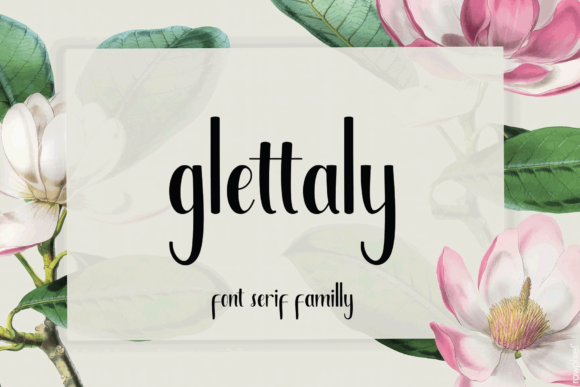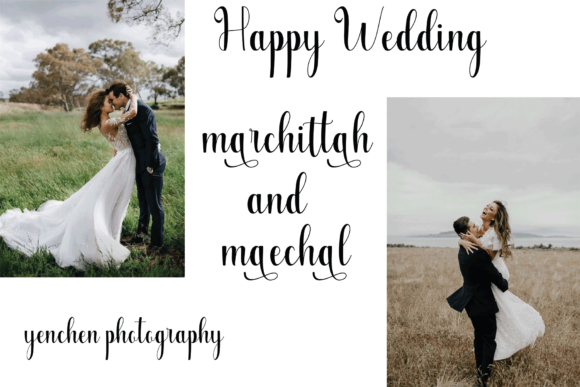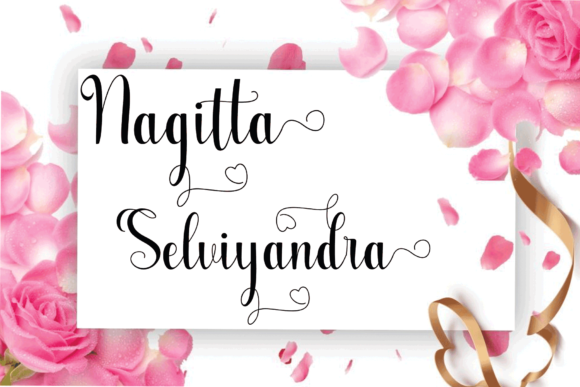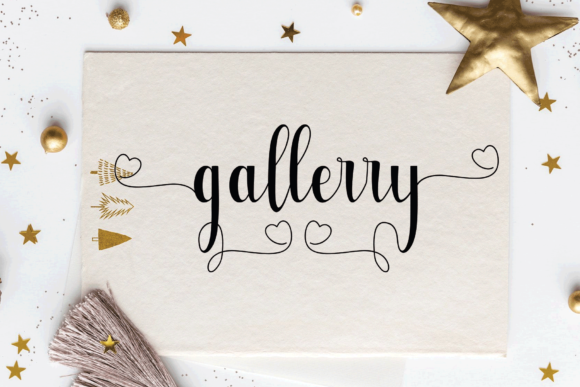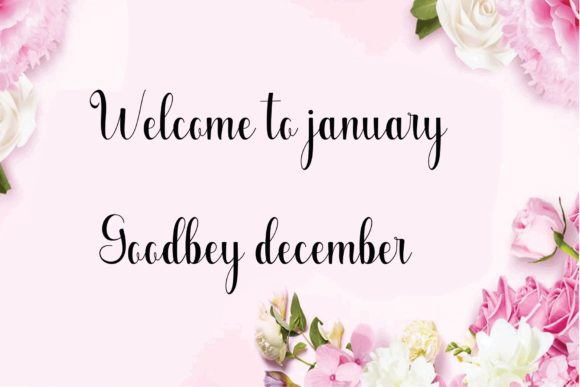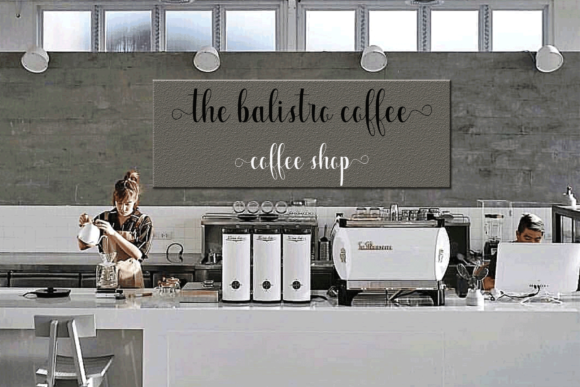
Glettaly Font: Add a Romantic Twist to Your Crafts
Are you a designer or crafter looking for a unique and romantic font to add a special touch to your projects? Look no further than Glettaly Font! This beautiful font is full of heart swashes that will add a romantic twist to any craft, making it perfect for Valentine’s Day projects and beyond.
What is Glettaly Font?
Glettaly Font is a stunning script font that features intricate heart swashes, perfect for adding a touch of romance and whimsy to your designs. The font is designed to be versatile and can be used for a variety of projects, from Valentine’s Day cards and crafts to wedding invitations and romantic gift tags.
Key Features of Glettaly Font
- Heart Swashes: Glettaly Font features beautiful heart swashes that add a romantic touch to any project.
- Script Font: The font is a script font, perfect for adding a touch of elegance and sophistication to your designs.
- Versatile: Glettaly Font can be used for a variety of projects, from Valentine’s Day crafts to wedding invitations and more.
Why Use Glettaly Font?
There are many reasons why Glettaly Font is a great choice for designers and crafters. Here are just a few:
- Add a Romantic Touch: The heart swashes in Glettaly Font add a romantic touch to any project, making it perfect for Valentine’s Day crafts and other romantic projects.
- Unique and Eye-Catching: The intricate heart swashes in Glettaly Font make it a unique and eye-catching font that will set your projects apart from the rest.
- Elegant and Sophisticated: The script font style of Glettaly Font adds an elegant and sophisticated touch to any project.
How to Use Glettaly Font
Using Glettaly Font is easy! Here are a few tips for incorporating it into your projects:
- Valentine’s Day Crafts: Use Glettaly Font to add a romantic touch to your Valentine’s Day crafts, such as cards, gift tags, and decorations.
- Wedding Invitations: Glettaly Font is perfect for wedding invitations and other wedding stationery.
- Romantic Gift Tags: Add a romantic touch to your gift tags with Glettaly Font.
Tips for Designing with Glettaly Font
Here are a few tips for designing with Glettaly Font:
- Pair with Other Fonts: Pair Glettaly Font with other fonts to create a unique and interesting design.
- Use Heart Swashes Wisely: Use the heart swashes in Glettaly Font to add a romantic touch to your projects, but be careful not to overdo it.